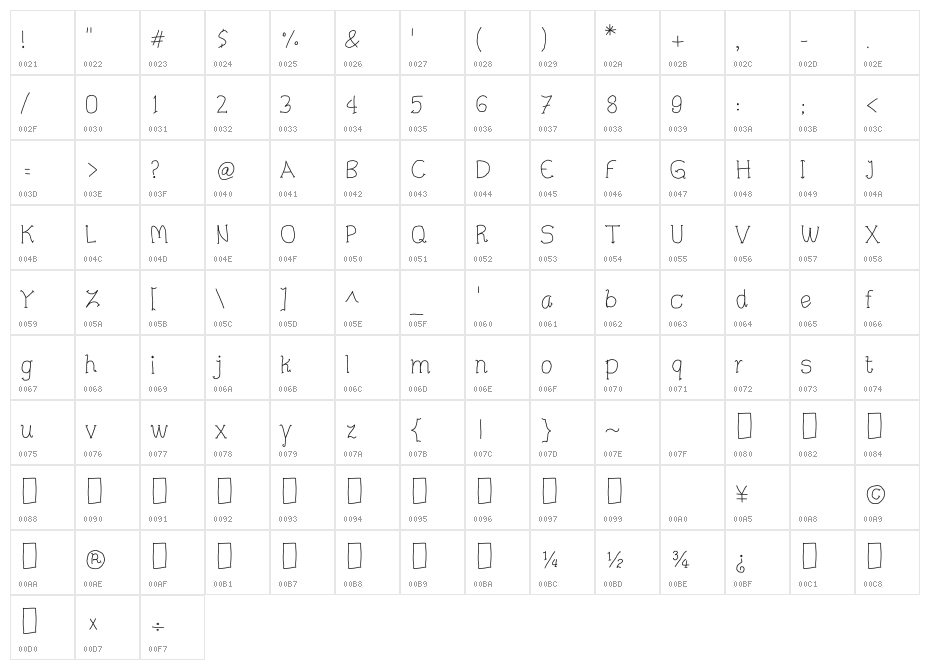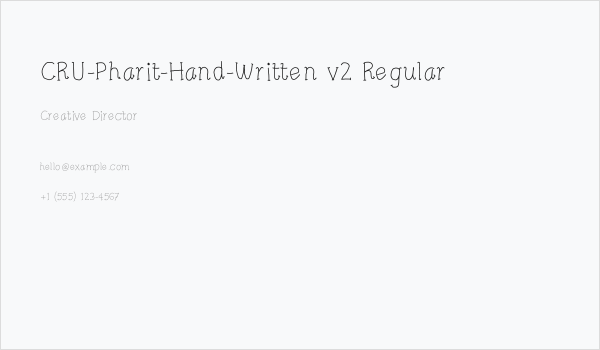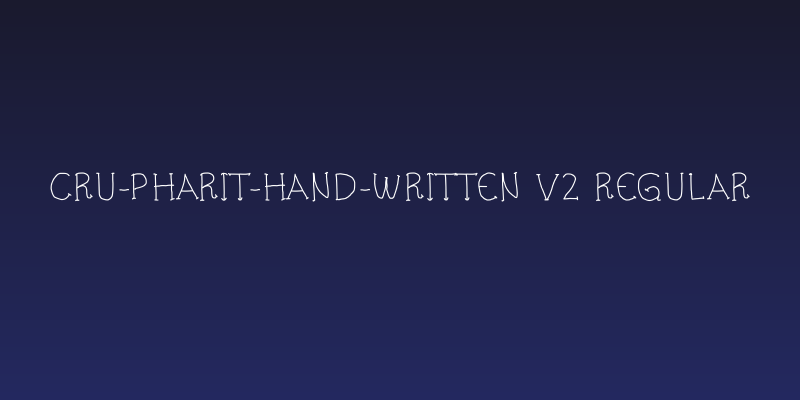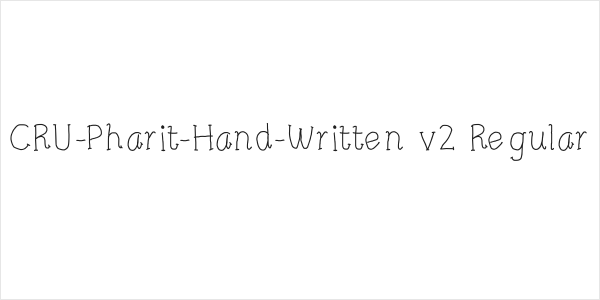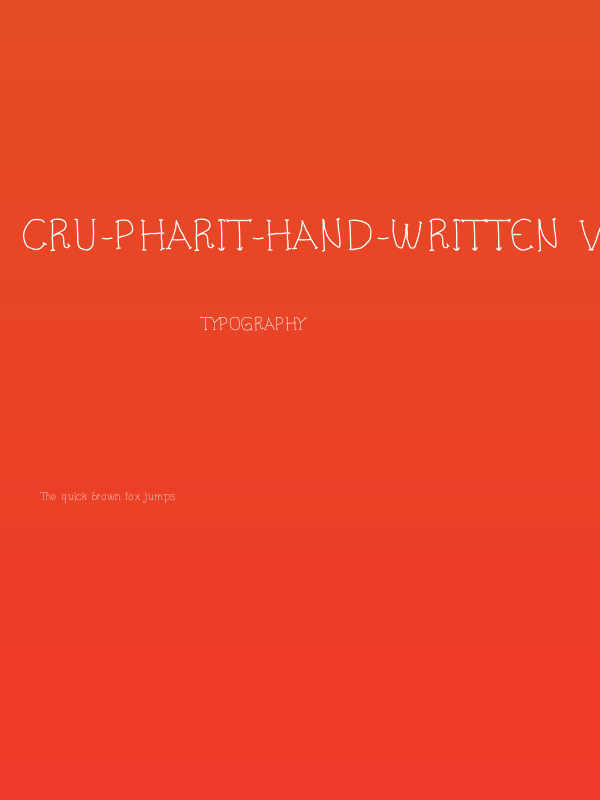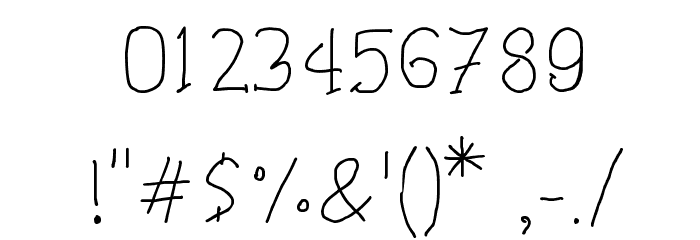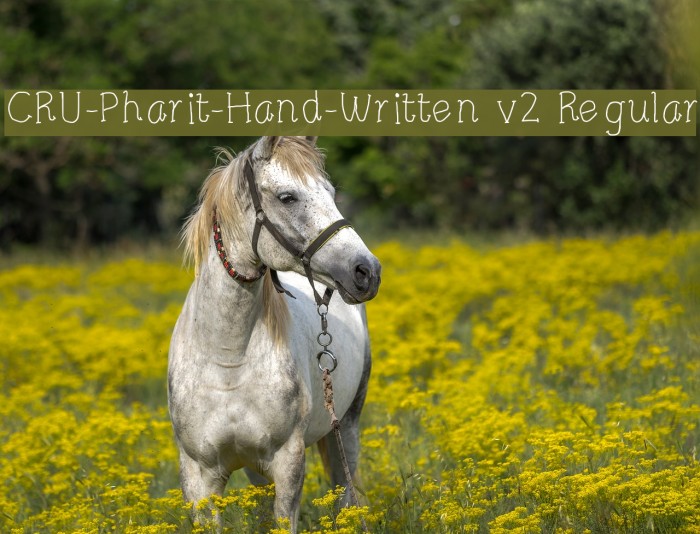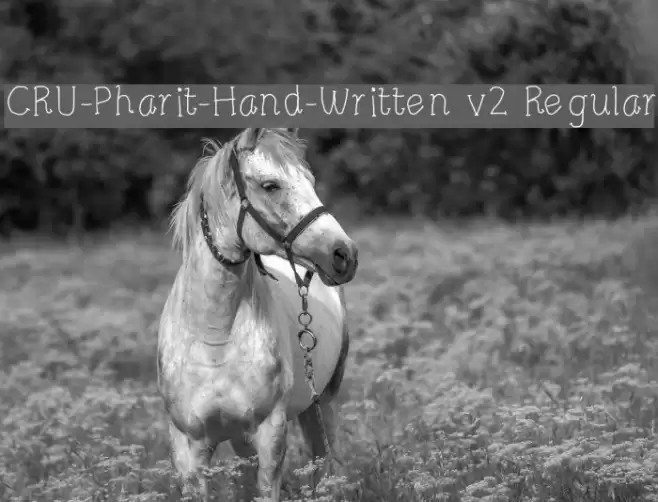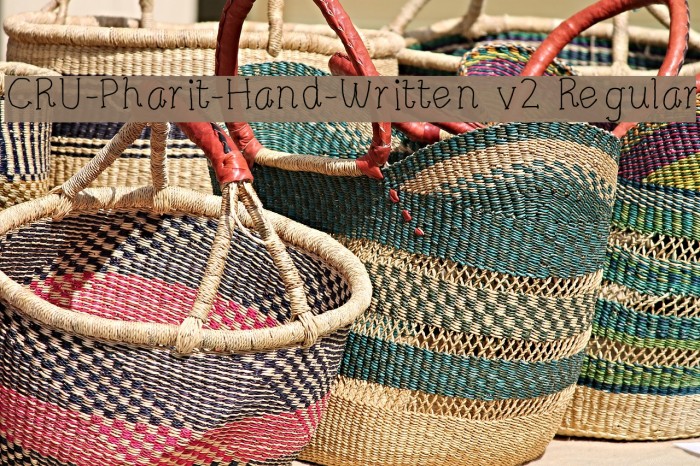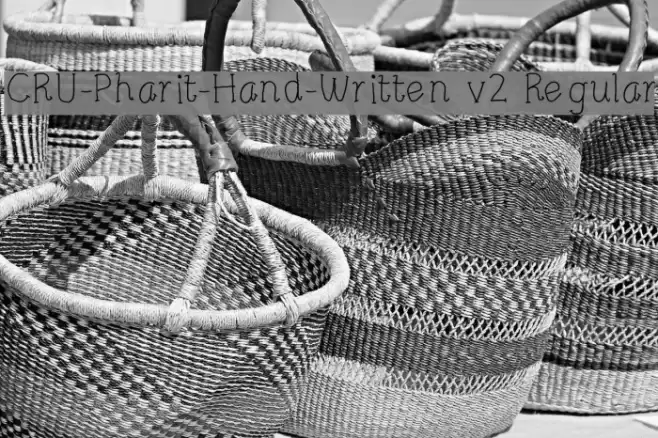
CRU-Pharit-Hand-Written v2 Regular Font
CRU-Pharit-Hand-Written v2 Regular Description
This font embodies a whimsical and playful handwritten style, characterized by its irregular strokes and charming imperfections. Each letter appears as if it were carefully drawn by hand, with slight variations in line thickness that add to its organic feel. The uppercase and lowercase letters maintain a consistent flow, while the numerals and special characters complement the overall aesthetic. The font's unique personality makes it stand out, offering a sense of creativity and individuality. Its casual yet artistic appearance is perfect for projects that require a personal touch.
| Use Case | Logos, Headlines, Invitations |
| Proposed Projects | Ideal for greeting cards, invitations, personal branding, and creative projects that require a personal touch. |